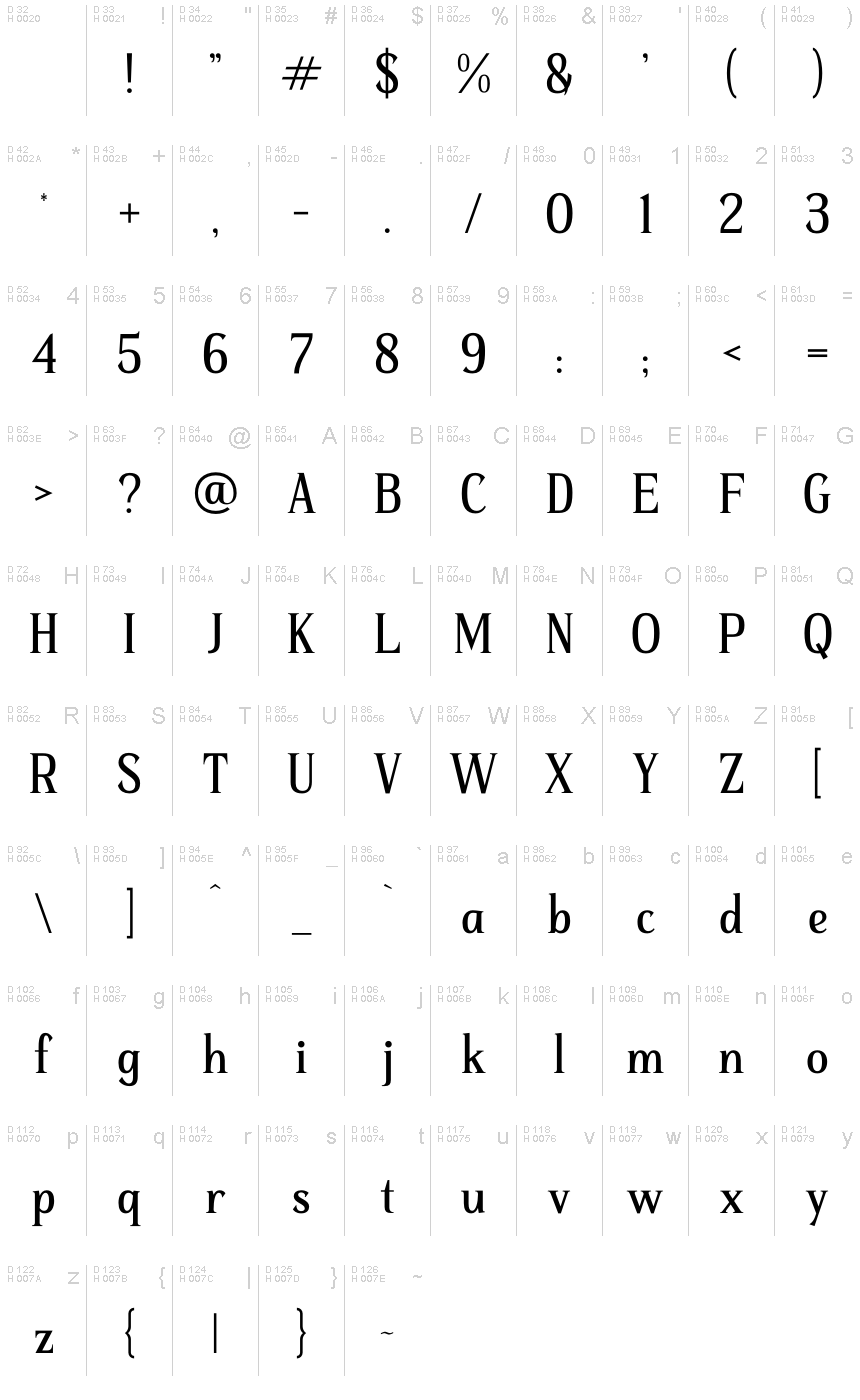
Naiflost Trasure
Naiflost Trasure, a captivating serif font designed by Storytype Studio, exudes a timeless elegance and sophistication. Its distinctive letterforms, with their subtle curves and delicate serifs, create a harmonious and visually-engaging aesthetic. This font effortlessly blends traditional influences with a modern sensibility, making it a versatile choice for a wide range of design projects.
Naiflost Trasure's refined and polished appearance lends itself well to high-end branding, editorial layouts, and luxury-focused applications. Its refined character and refined character make it an excellent selection for premium product packaging, website headers, and prestigious event materials. Ultimately, this font's adaptability and timeless appeal make it a valuable asset for designers seeking to elevate the aesthetic of their projects.